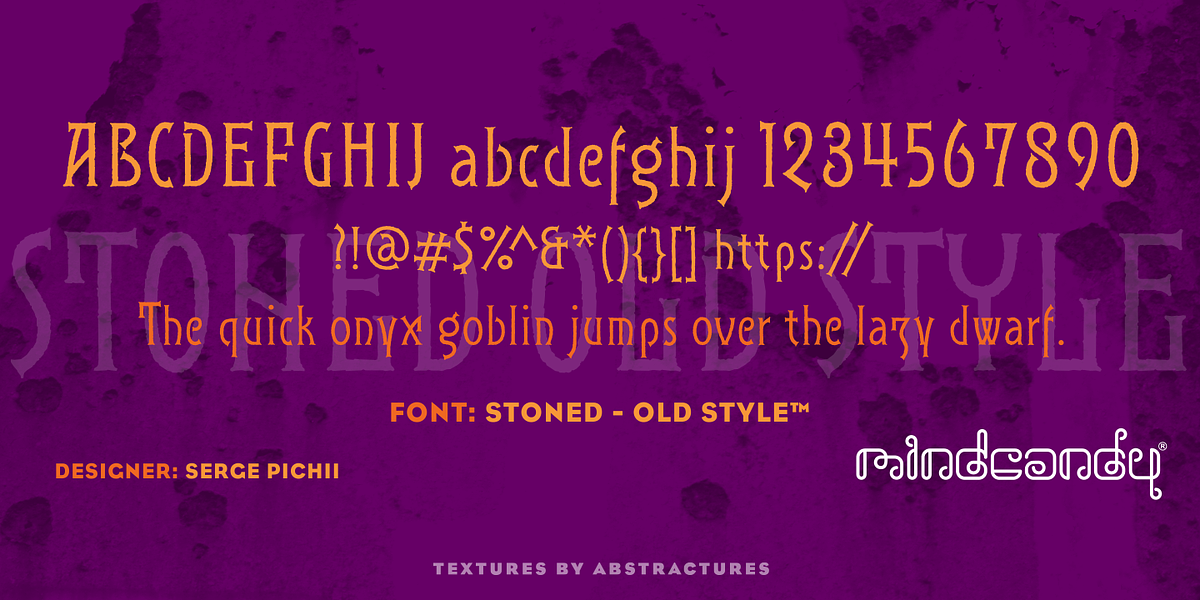
Stoned Old Style™
This serif typeface is designed in a vintage style and features flared serifs. It's suitable for applications like headlines and branding.